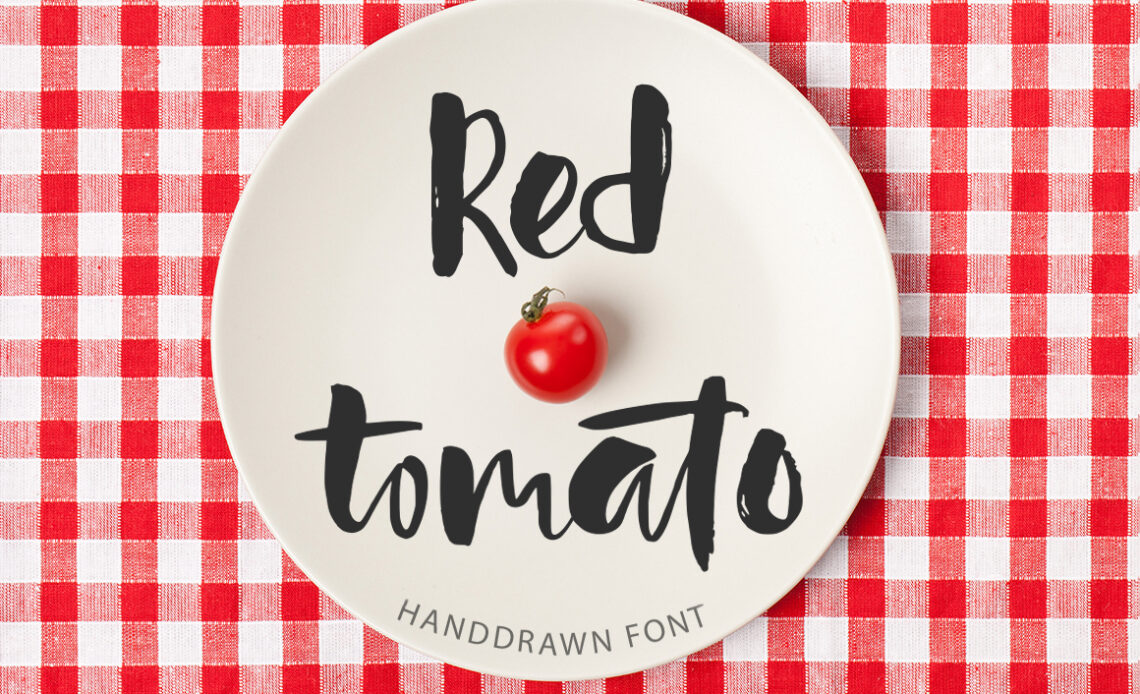
Experience the Enchanting Dance of Letters with Red Tomato Font
Embark on a typographic adventure with Red Tomato Font, a whimsical hand-drawn script that captures the vibrant spirit of summer and gardening. Let your words bloom with creativity as you embrace this playful font, designed with a dancing baseline and captivating hand-drawn texture.
Unleash Your Inner Artist with Red Tomato Font
Red Tomato Font is an artist's playground, inviting you to explore the realm of typography. Its enchanting strokes, inspired by the beauty of nature, will transform your designs into masterpieces. Discover the joy of crafting logos that burst with personality, invitations that exude warmth, and social media posts that dance off the screen.
Add a Touch of Summer Charm to Your Designs
With Red Tomato Font, you hold the key to unlocking a world of summery delight. Transport your designs to a sun-drenched meadow, where wildflowers sway in the gentle breeze and laughter fills the air. Create designs that evoke the nostalgia of handwritten letters, capturing the essence of simpler times.
Embrace the Playful Spirit of Red Tomato Font
Red Tomato Font is more than just a font; it's an ode to joy and spontaneity. Its playful nature invites you to experiment, to break free from convention, and to embrace the unexpected. Let your imagination run wild as you create designs that spark conversations and leave a lasting impression.